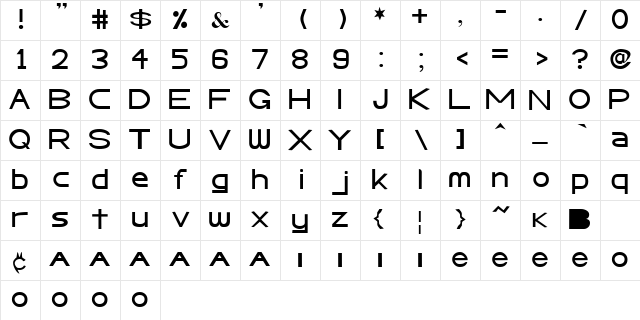
Abtechia 1 Free Font
Abtechia 1
Design Context for Abtechia
Abtechia has a distinctly futuristic character, with geometric precision and clean angles that feel at home in technology, gaming, and sci-fi contexts.
Pro Tip: Try Abtechia with generous letter-spacing in UI labels and navigation - the geometric forms benefit from room to breathe.